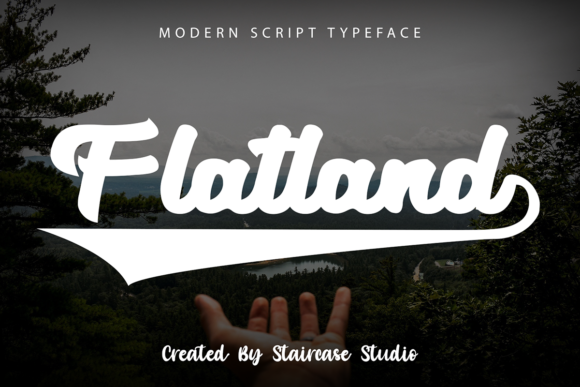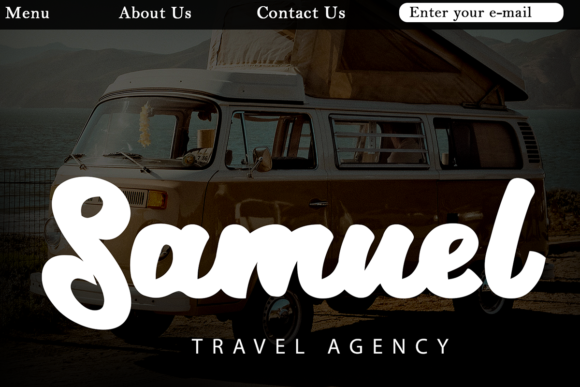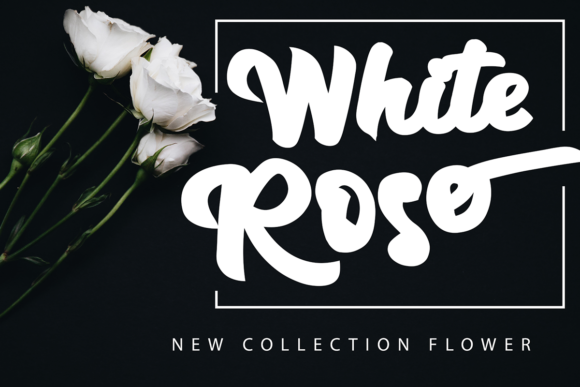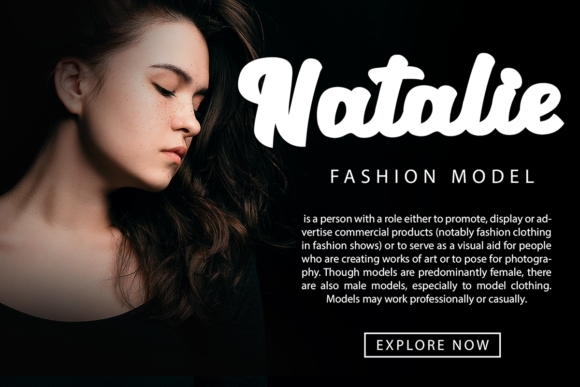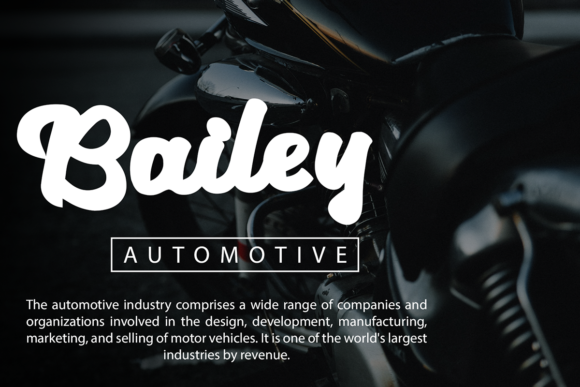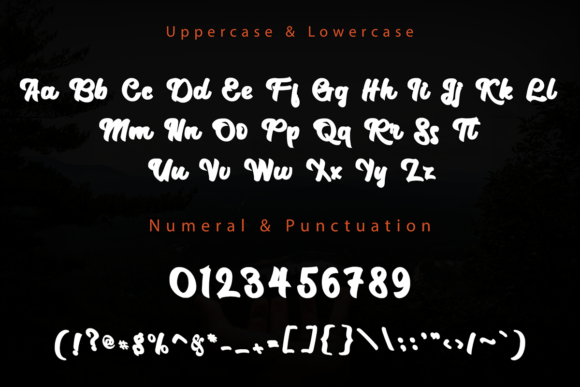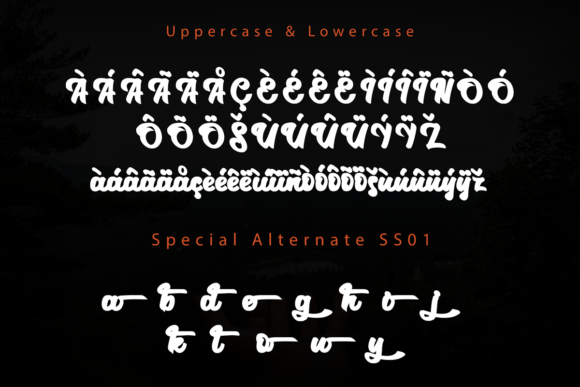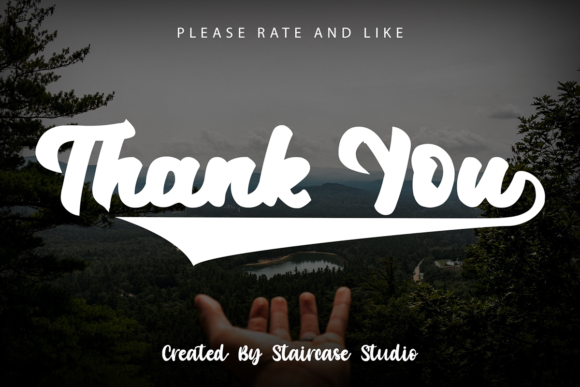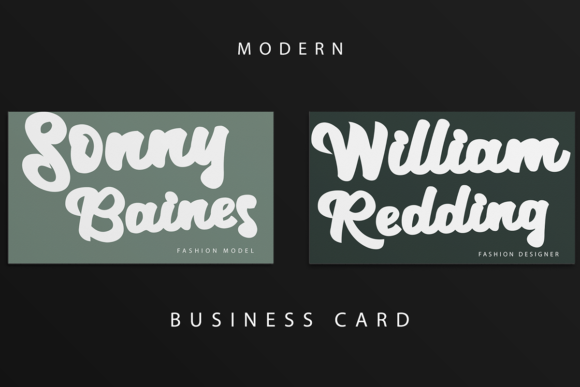
Flatland Font
About Flatland Font
Flatland is a modern and bold handwritten font. A collection of letters and numbers suitable for your projects is also great for logotypes, branding designs, logos, digital lettering arts, t-shirt/apparel, posters, magazines, signs, advertising designs, and so much more.